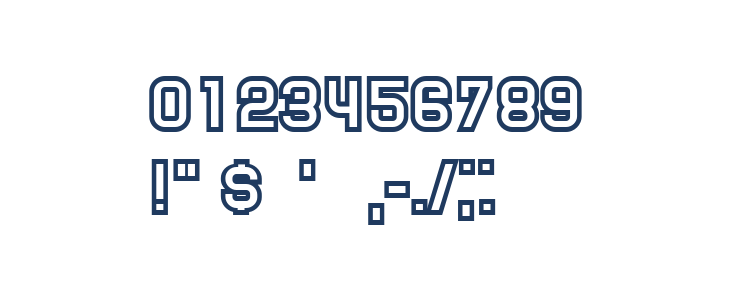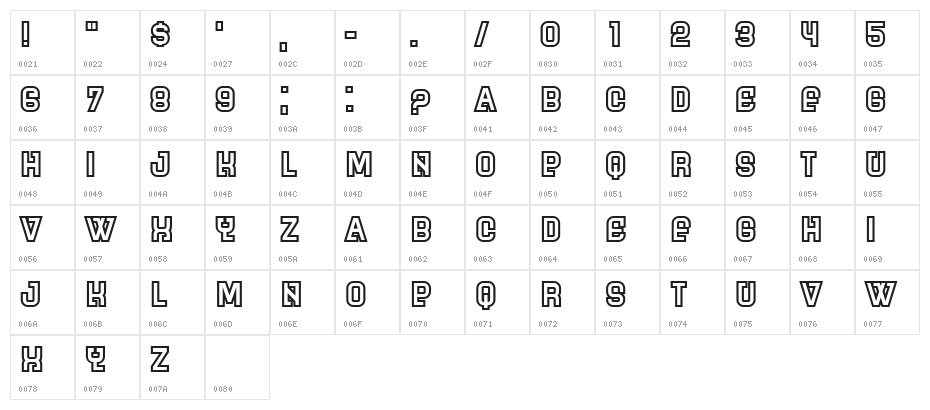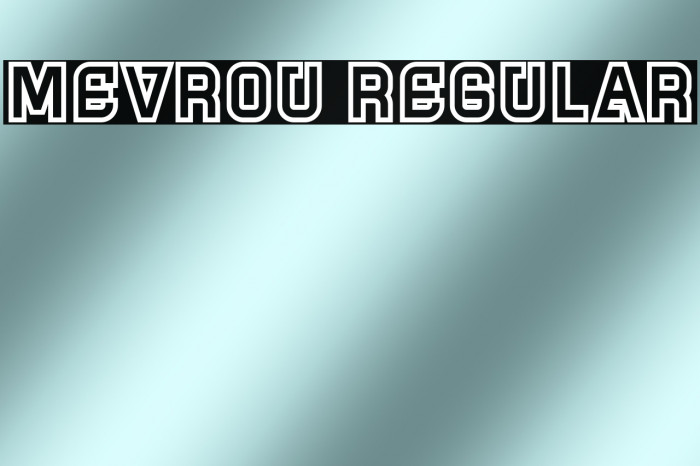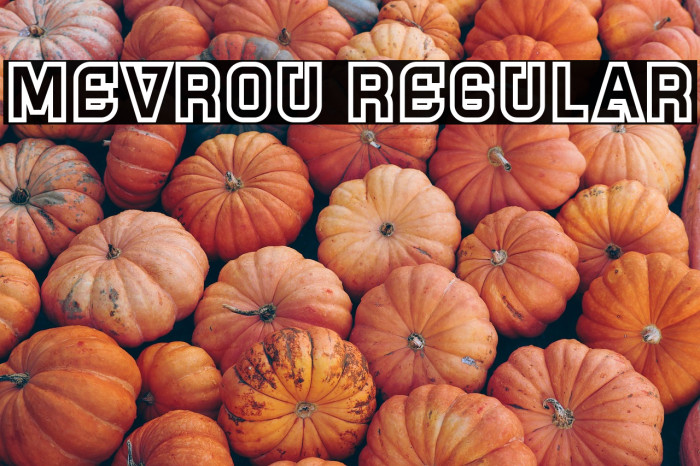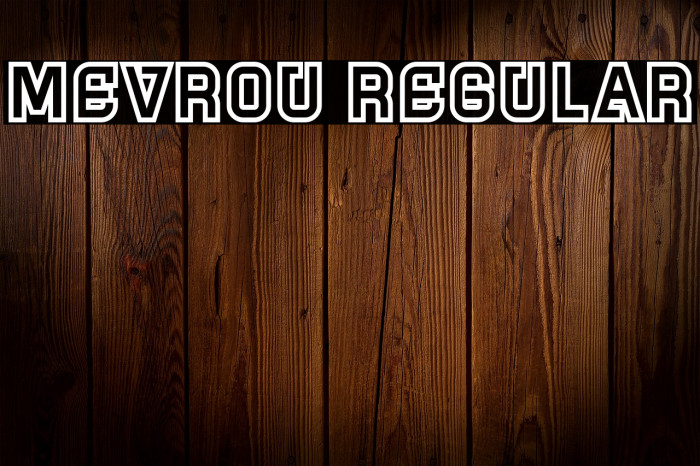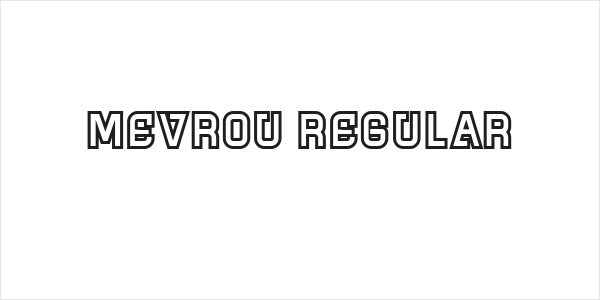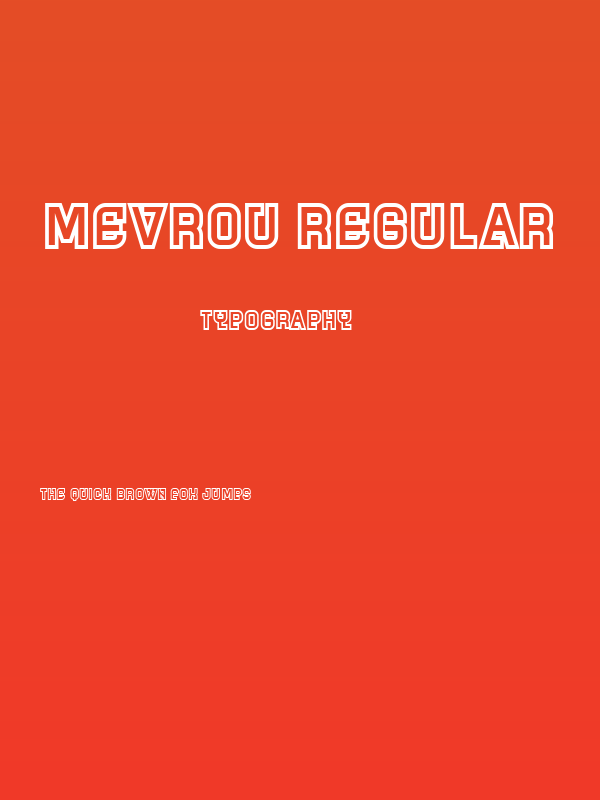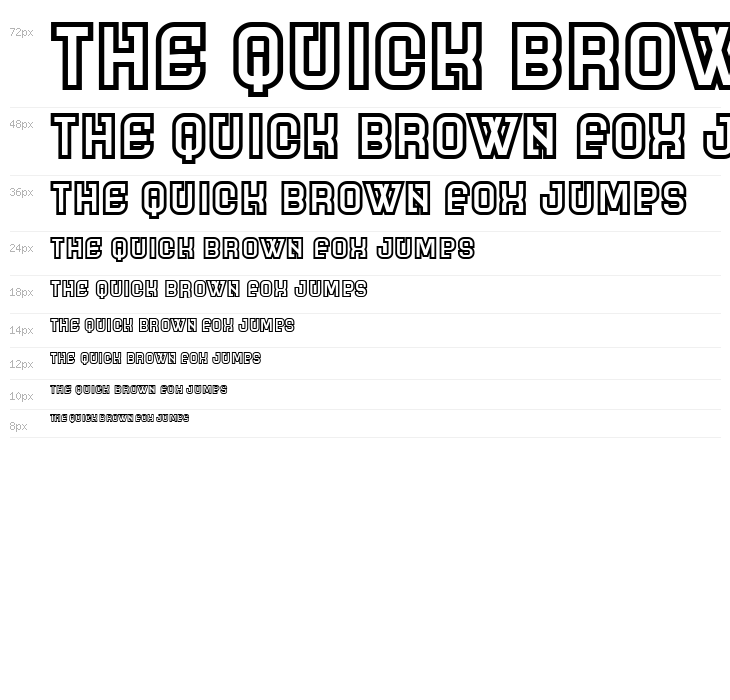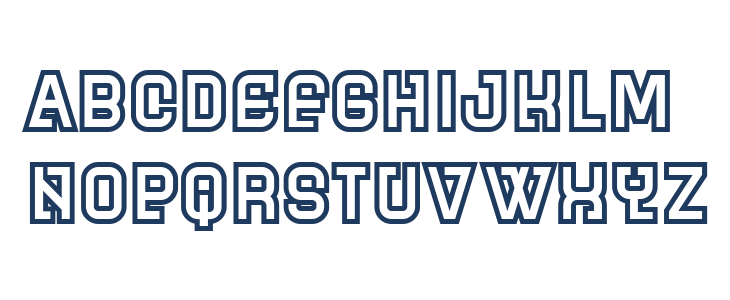
Mevrou Regular Font
Mevrou Regular Description
This font features a bold, geometric design with a distinct outline style. Each character is crafted with precision, showcasing a modern and structured appearance. The uppercase and lowercase letters maintain a consistent width, creating a uniform look across the board. Numbers and special characters are designed to match the boldness and clarity of the alphabet, making it versatile for various uses. The font's open and airy design ensures readability while maintaining a strong visual impact, ideal for attention-grabbing headlines and logos.